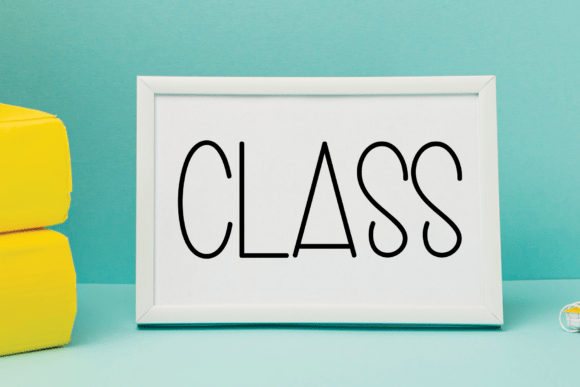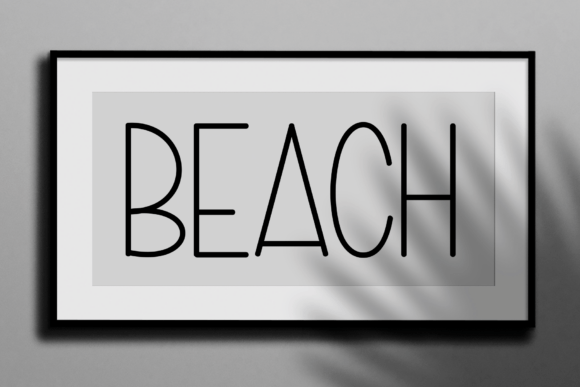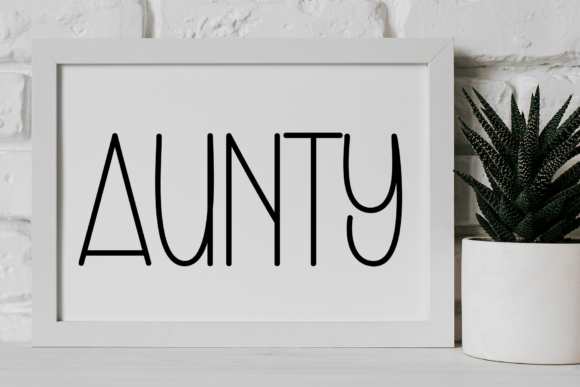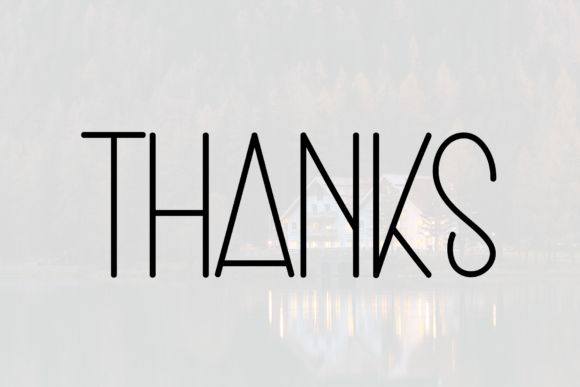
The Perfect Cozy Touch: Introducing Alnight Font
Have you ever been stuck in a design rut, trying to add that extra something special to a project but struggling to find the right words? We’ve all been there – staring at a blank page, searching for the perfect font to bring our creative vision to life. That’s where Alnight Font comes in, a beautiful handwritten font that will add a cozy accent to any design project you wish to create.
This charming font features characters that dance along the baseline, creating a sense of movement and energy that’s perfect for adding a touch of personality to your designs. Whether you’re working on a blog post, a social media campaign, or a marketing brochure, Alnight Font is the perfect addition to take your design to the next level.
Key Features of “Alnight Font”
- Unique Characteristics: This font features a distinctive, hand-drawn aesthetic with subtle texture and organic feel, making it ideal for creative and artistic applications.
Designer Review: Alnight Font
Overall, I think the Alnight Font is a great addition to any designer’s toolkit. It’s ✨ bold, ✨ elegant, and ✨ versatile. The font is perfect for use in modern and minimalist designs, where you want to make a statement without overpowering the content.
The Alnight Font has a clean and sophisticated design that makes it perfect for use in headings, titles, and logos. The font is also highly customizable, allowing you to adjust the size, color, and style to suit your design needs.
- ✨ Bold and elegant design
- ✨ Versatile and highly customizable
- Perfect for modern and minimalist designs
- Great for use in headings, titles, and logos
- ⚠️ May not be suitable for use in body text, as it can be difficult to read in small sizes
- ⚠️ Limited support for languages other than English and Latin-based languages
Overall, I would recommend the Alnight Font to designers who are looking for a bold and elegant font to add to their toolkit. While it may have some limitations, the font’s versatility and customizability make it a great choice for a wide range of design projects.
Use Alnight Font for creative and modern designs, such as:
Headlines and titles
Brand logos and identity
Poster and flyer designs